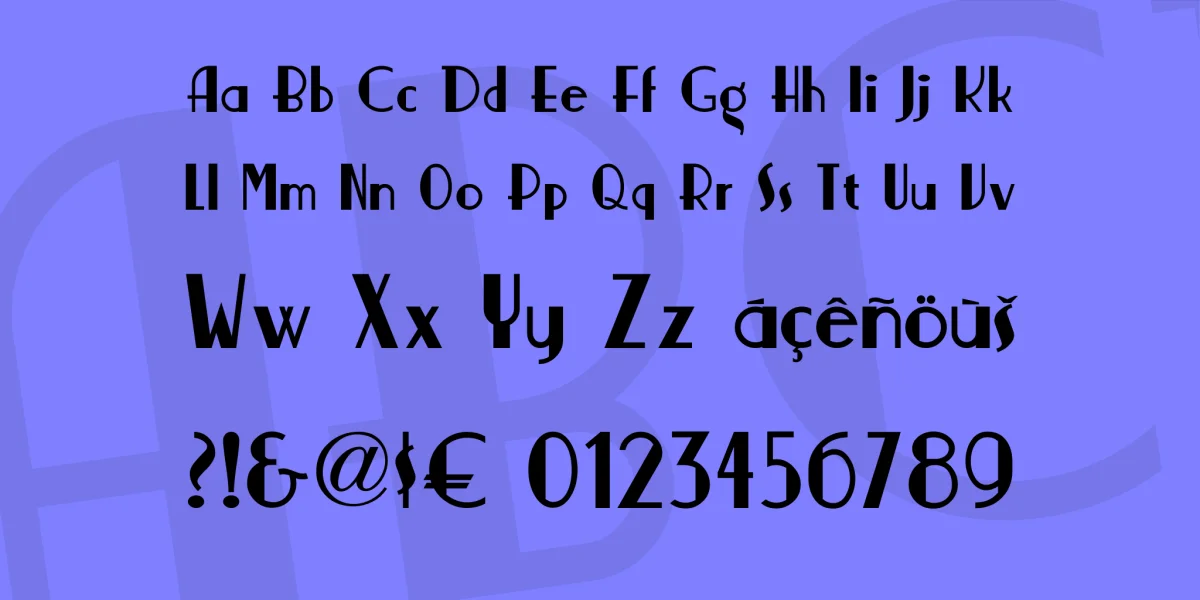
Yet another Art Deco font, loosely based on the classic typeface Gatsby. Suitable for elegant, insouciant or grandiloquent occasions; also great for gangsters.